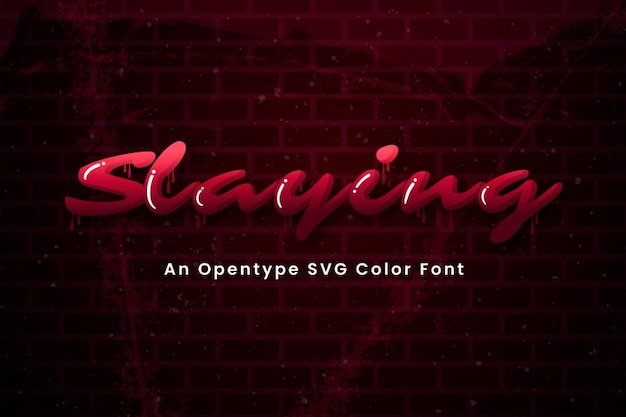
Slaying
Slaying Font
The wicked font that's straight-up bloody and dripping with attitude! This font brings the raw power of gore to your designs, or anything that needs that edgy, hardcore vibe. It's like you've dipped your words in the blood of your enemies! Get ready to slay the design game with Slaying!